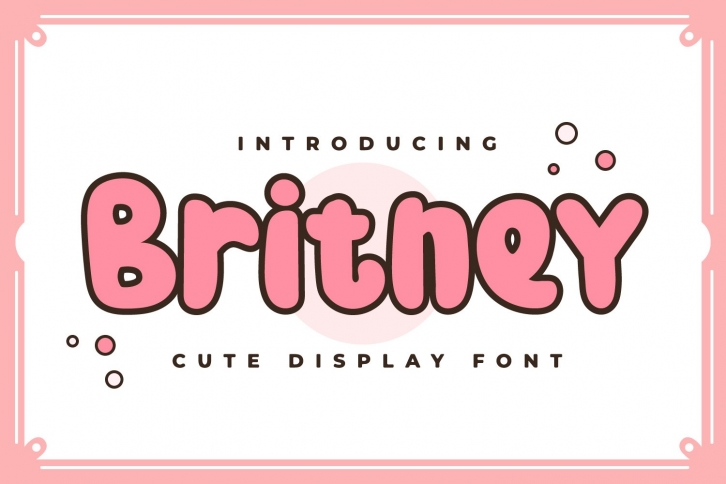
Britney is a trendy and unique font with an authentic style. It was designed by titik creative and it's a great choice for creative people who need such a font. It was released on April 1, 2021 and the file size is 11.29 MB. Britney will add an organic vibe to any design idea!